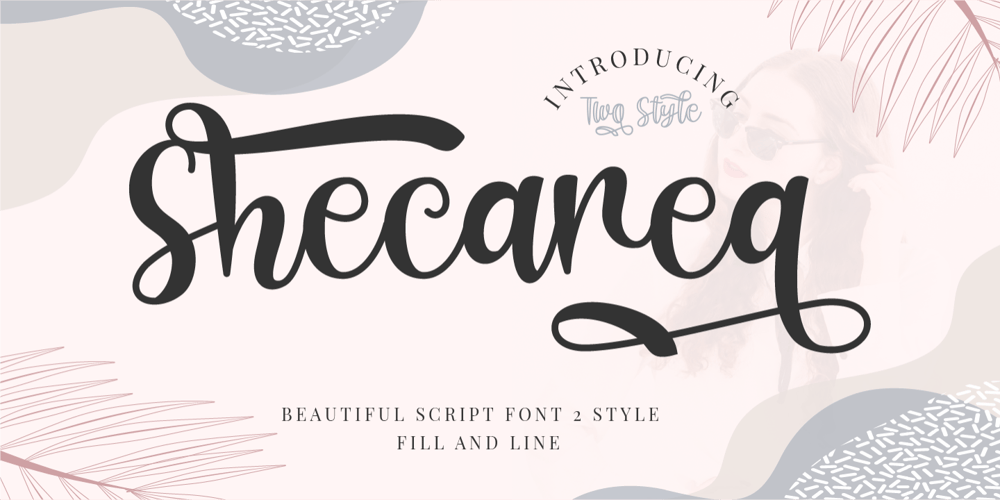
Shecarea
Shecarea font
Shecarea Font Family was designed by Putra Novembria Candra Kusuma and published by Putracetol. Shecarea contains 2 styles and family package options. Shecarea is a beautiful script font with 2 style, fill style and line style. This font has a modern and unique font feel, there is more feminine style too.Shecarea is perfect for logotype creation, lettering compositions, wedding invitations, fashion projects, book design cover, magazines typography, cards, packagings, posters, branding and more.Come with open type feature like a lot of alternates and also ligatures. Its help you to make beautiful lettering.This font is also support multi language